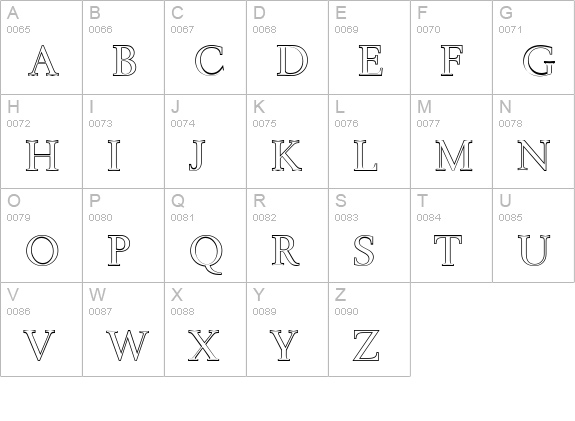
BelfastOutline-Regular is the standard, neutral variant in the BelfastOutline typeface family \xE2\x80\x94 well suited to general body text, paragraphs, and standard typographic work.
BelfastOutline-Regular font is a modern and stylish typeface that exudes sophistication and elegance. Its sleek outline design adds a touch of uniqueness to any project, making it stand out from the crowd. This versatile font is perfect for a wide range of design projects, from branding to editorial layouts. Best of all, BelfastOutline-Regular is available for free download at FontsMarket.com. Whether you're a professional designer or just looking to spruce up your personal projects, this font is a great choice. Don't miss out on the opportunity to elevate your designs with this stunning typeface - get your free download today!